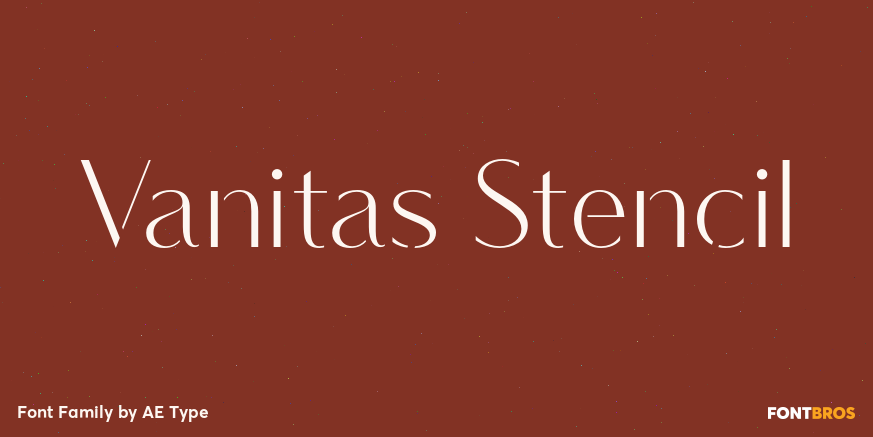
Vanitas Stencil
About Vanitas Stencil
Vanitas Stencil is an elegant high contrast contemporary sans. It is rooted in the style of a classic didone, excluding the typical serifs and ball terminals as well as being designed with a cleaner, more reductionist appearance. Strict attention was…